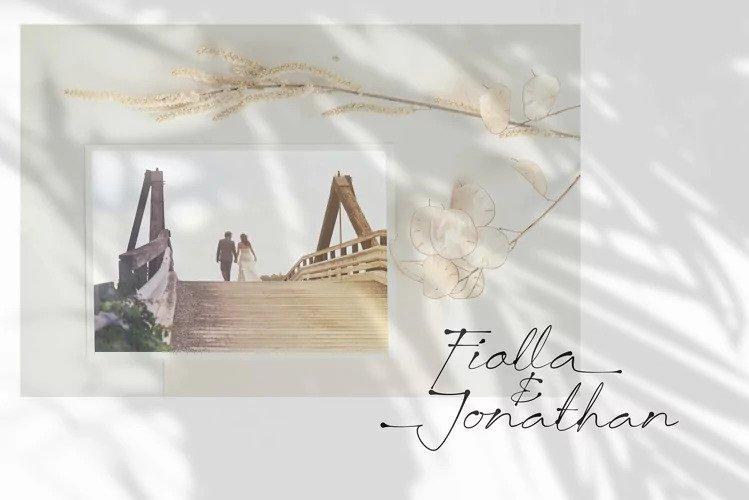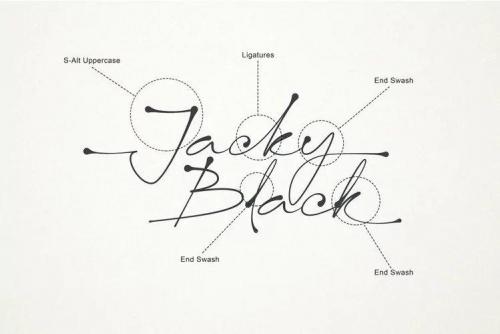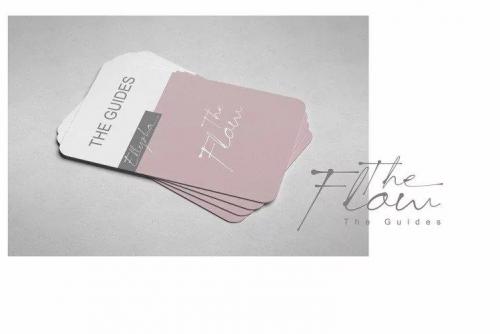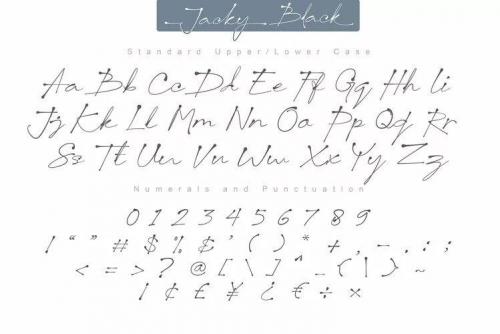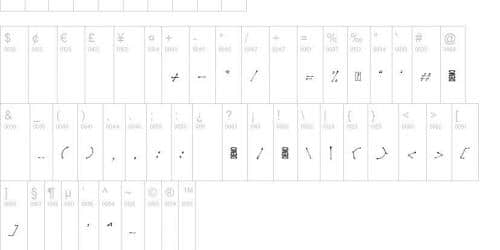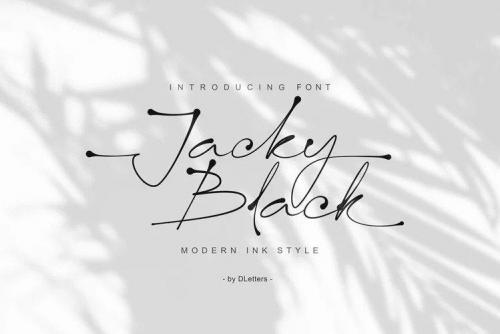
Jacky Black is a thin and delicate handwritten font. It maintains its classy calligraphic influences while feeling contemporary and fresh. Fall in love with it and bring your projects to the highest levels!
- Designer: DLetters.Std